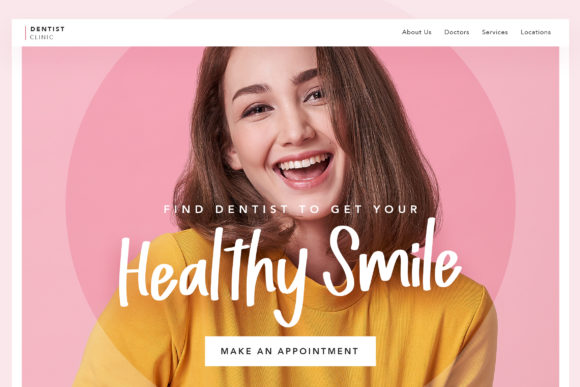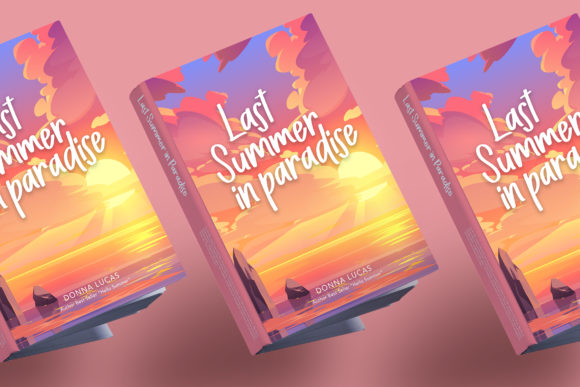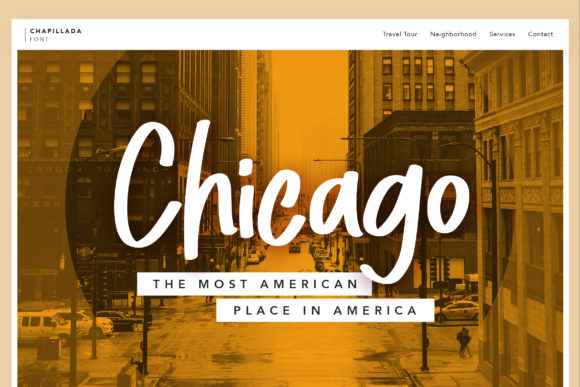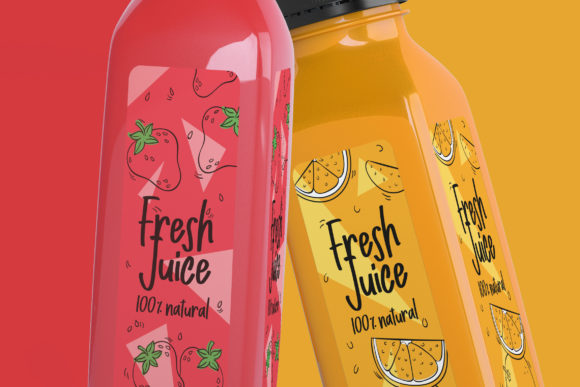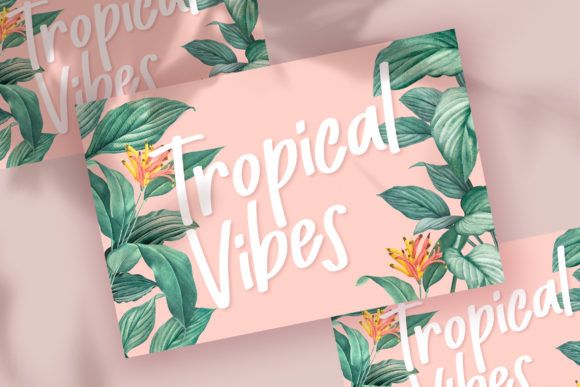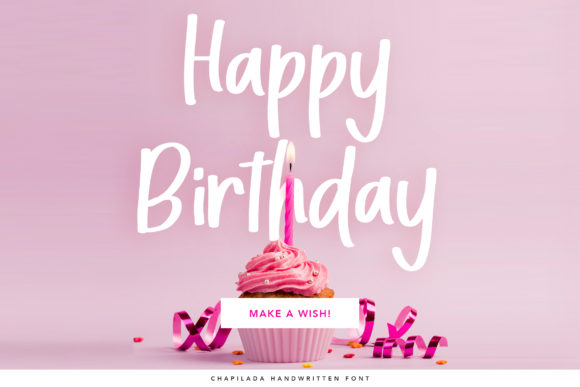
Discover the Charm of Chapillada Font: A Fresh Twist on Classic Script
In the world of typography, few fonts manage to strike a balance between familiarity and innovation. Chapillada Font, however, achieves this delicate equilibrium with ease. This surprising, gorgeous script is not only visually stunning but also brings a playful feel to any design project. If you’re a designer, crafter, or simply a typography enthusiast, Chapillada Font is sure to capture your heart with its unique style.
The Essence of Chapillada Font
At first glance, Chapillada Font may seem like a traditional script font, but upon closer inspection, its distinctive characteristics set it apart from more conventional typefaces. The font exudes a sense of elegance and sophistication, making it perfect for a wide range of design applications, from branding and advertising to packaging and editorial design.
One of the standout features of Chapillada Font is its fluid, cursive strokes that seem to dance across the page. The letters are carefully crafted to create a sense of movement and energy, giving the font a dynamic and playful feel. This makes Chapillada Font an excellent choice for designers looking to add a touch of whimsy and personality to their work.
What Makes Chapillada Font So Special?
So, what sets Chapillada Font apart from other script fonts on the market? Here are a few key factors that contribute to its unique charm:
- Unique Letterforms: Chapillada Font features a range of distinctive letterforms that are both elegant and quirky. The font’s designer has carefully crafted each letter to create a sense of individuality and character.
- Flowing Connections: The connections between letters are smooth and fluid, creating a sense of continuity and flow. This makes Chapillada Font perfect for use in body text, headings, and titles.
- Playful Personality: Chapillada Font has a playful personality that shines through in its design. The font is perfect for designers looking to add a touch of whimsy and fun to their work.
Using Chapillada Font in Your Design Projects
Chapillada Font is an incredibly versatile typeface that can be used in a wide range of design projects. Here are a few ideas to get you started:
- Branding and Logo Design: Chapillada Font is perfect for creating unique and memorable brand identities. The font’s playful personality and elegant letterforms make it an excellent choice for logos, business cards, and letterheads.
- Editorial Design: Chapillada Font is well-suited to editorial design, including magazines, newspapers, and books. The font’s flowing connections and elegant letterforms make it perfect for body text and headings.
- Packaging Design: Chapillada Font can add a touch of personality and whimsy to packaging design. The font is perfect for creating eye-catching labels, tags, and packaging materials.
Tips for Getting the Most Out of Chapillada Font
To get the most out of Chapillada Font, here are a few tips to keep in mind:
- Experiment with Font Sizes: Chapillada Font looks great at a range of font sizes, from large headings to smaller body text. Experiment with different font sizes to find the perfect balance for your design.
- Play with Color: Chapillada Font is a versatile typeface that can be used with a range of colors and textures. Experiment with different color schemes and textures to add depth and interest to your design.
- Mix and Match: Chapillada Font can be paired with a range of other typefaces to create interesting and dynamic typography. Experiment with different font combinations to find the perfect match for your design.
In conclusion, Chapillada Font is a unique and versatile typeface that is sure to capture the hearts of designers and crafters alike. With its elegant letterforms, flowing connections, and playful personality, Chapillada Font is perfect for a wide range of design applications. Whether you’re looking to add a touch of whimsy to your branding, editorial design, or packaging, Chapillada Font is an excellent choice.